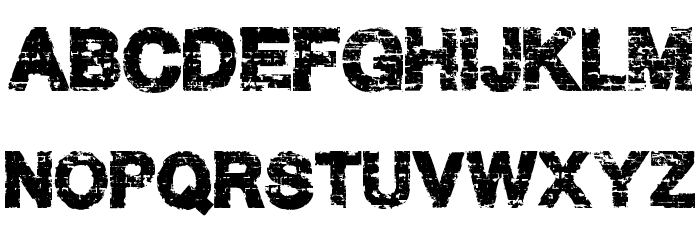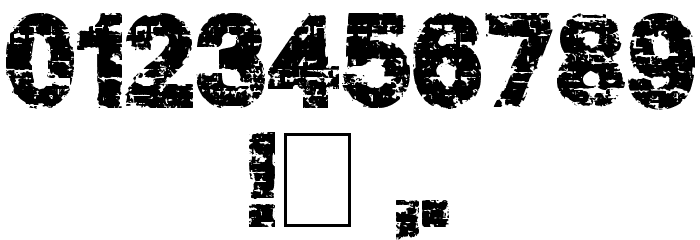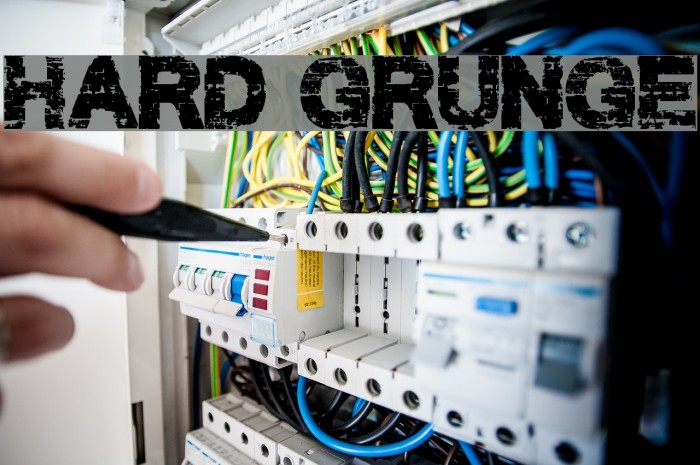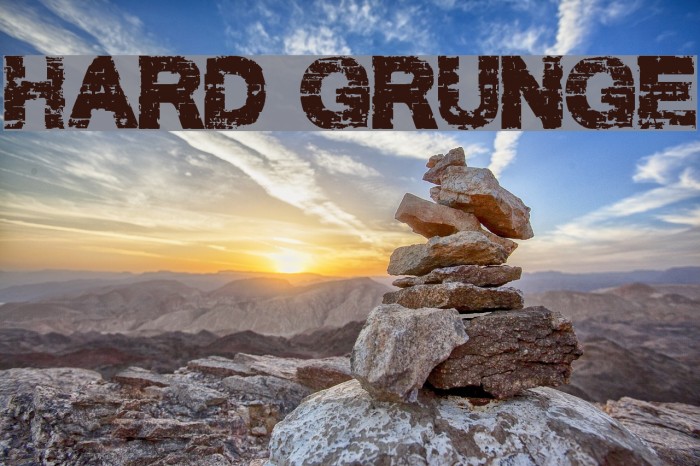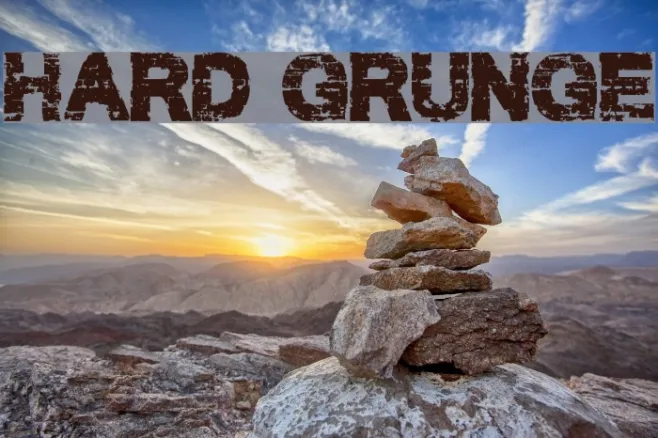
Hard Grunge Font
This font exhibits a rugged, distressed appearance, characterized by its rough, textured edges and uneven surface. The letters are bold and impactful, with a grunge aesthetic that suggests wear and tear, making it ideal for designs that require a raw, edgy look. The uppercase and lowercase letters maintain a consistent style, with numbers and special characters following the same distressed pattern. This font is perfect for projects that aim to convey a sense of rebellion or nonconformity, such as music album covers, posters, or urban-themed designs.
A bold, distressed font with a rugged, grunge aesthetic.
- Proposed Projects: Ideal for music album covers, posters, urban-themed designs, and rebellious branding.
- Overall Style: Grunge, Edgy